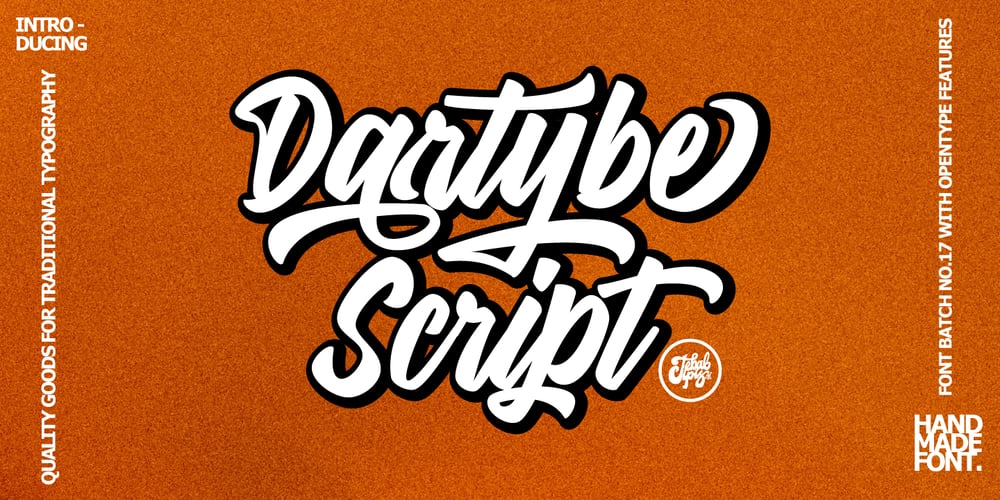
Dartybe Script Font Family was designed by Dzulka Elfira and published by Tebaltipis Studio. Dartybe Script contains 2 styles and family package options. Introducing new latest from TebTipsudio, Dartybe is a script typeface with personality. You can use it as a logo, badge, insignia, packaging, headline, poster, etc The alternative characters in this font were divided into several OpenType features such as Stylistic Alternates, Stylistic Sets, and Ligature. The OpenType features can be accessed by using OpenType program such as Adobe Illustrator, Adobe Photoshop, and Adobe InDesign.